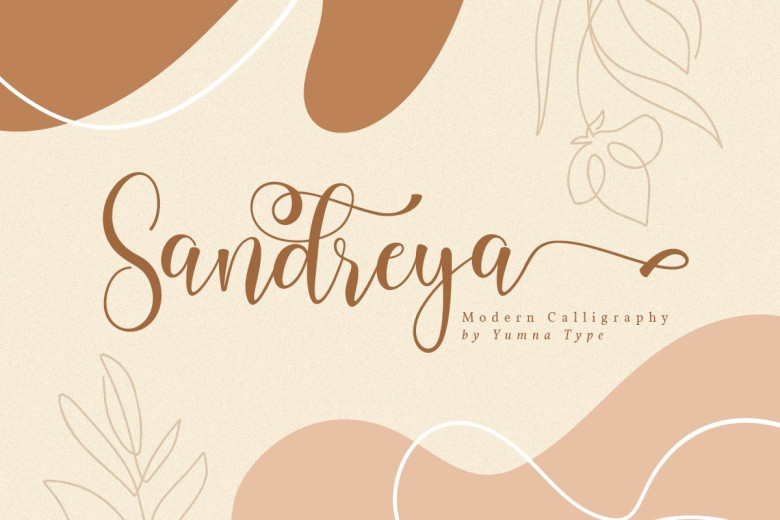
Sandreya Modern Calligraphy Font
Introducing the elegant new Sandreya Calligraphy Script Font! For those of you who are needing a touch of elegance and modernity for your designs, this font was created for you! Sandreya is suitable for all your design project needs such as: logo design, branding, covers, posters, magazines, wedding invitations, greeting cards, quotes and more.
Sandreya was built with Open Type features and includes beginning and ending swashes, alternate swash characters for most lowercase letters, numbers, punctuation, alternates, ligatures and it also supports other languages